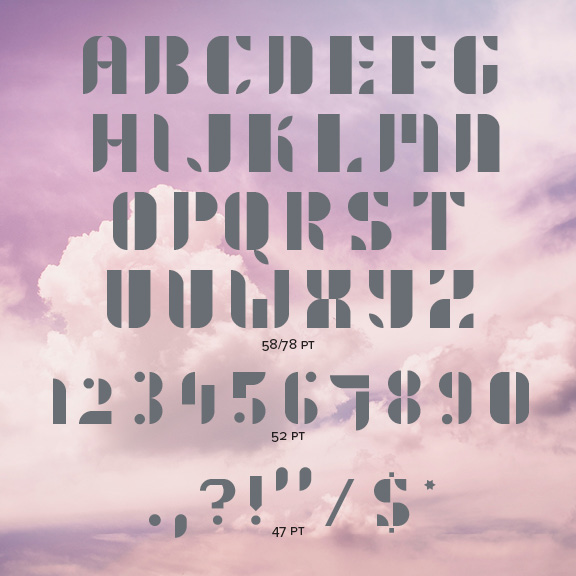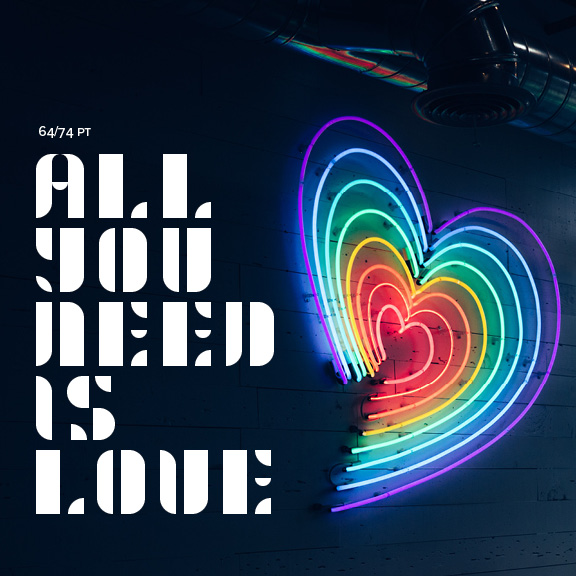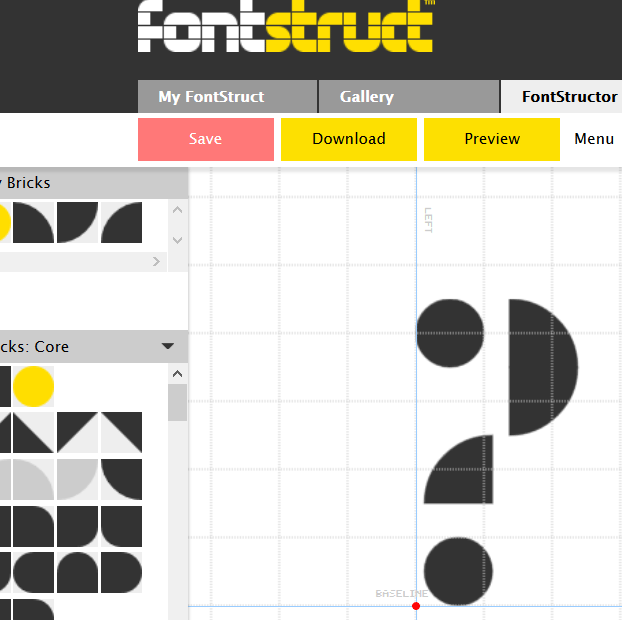
I know, Galactica is misspelled. D'oh! I will get around to fixing it eventually.
I like it! I would just add a break in the question mark (?) to unite it with the font, so you know it belongs there. Good work!
Thanks! I'm not sure what you mean by a "break" in the question mark. Can you explain further?
I don't intend to tell you what to do, only that the "?" doesn't seem to share the same style, and this is just a quick visual of what I mean.  The breaks, the stencil, is missing in the one you have.
Oh, I see what you mean. Thanks for the feedback. I appreciate it.